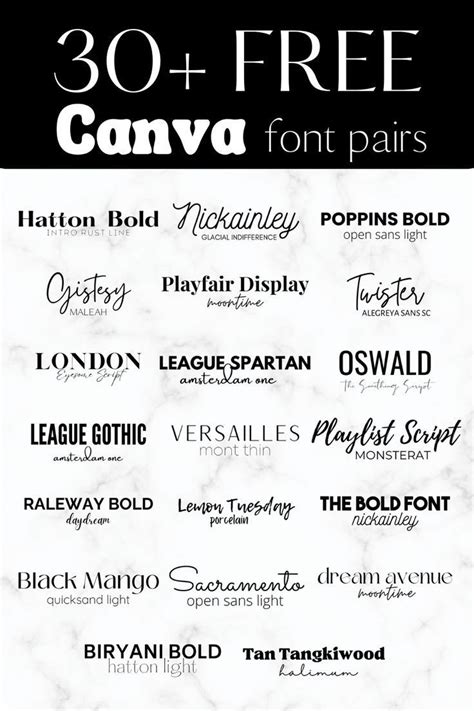
Canva Font Pairs. Pair a regular and bold font to create a subtle contrast. Pair a tall and short.
Pair a regular and bold font to create a subtle contrast. Balance a script font with a bold font. Pair a tall and short.
Pair a tall and short. Pair a regular and bold font to create a subtle contrast. Balance a script font with a bold font. Pair a tall and short.